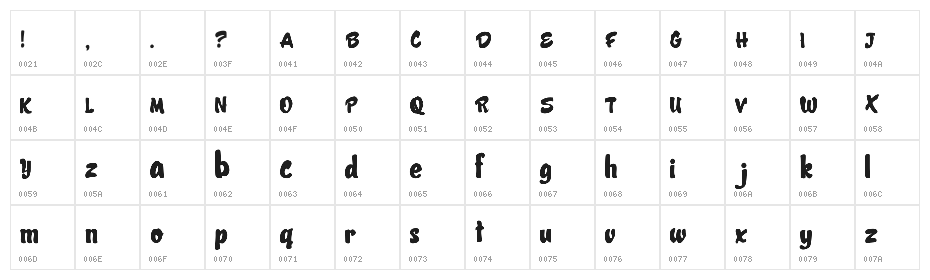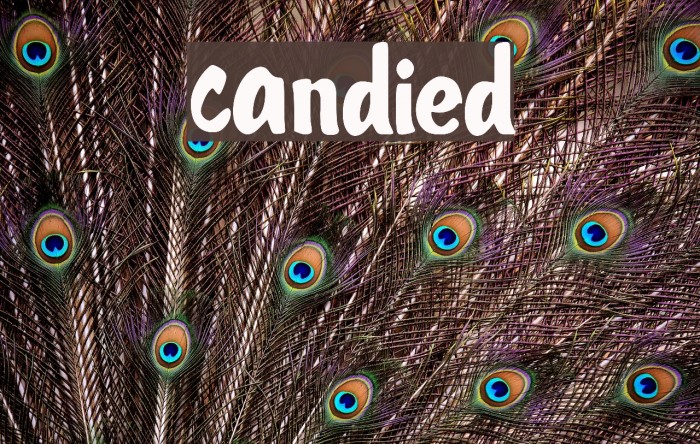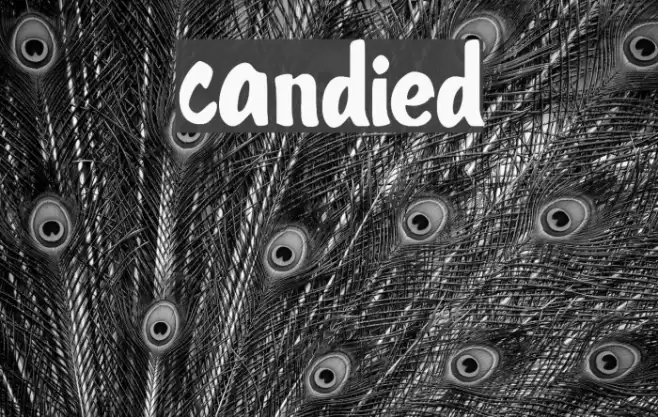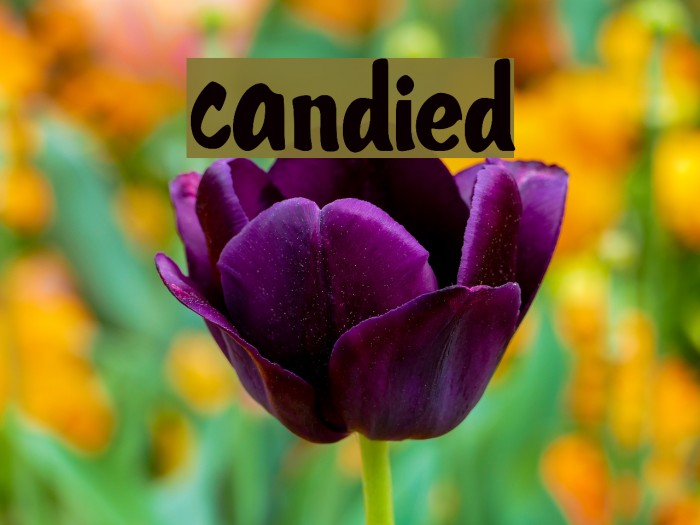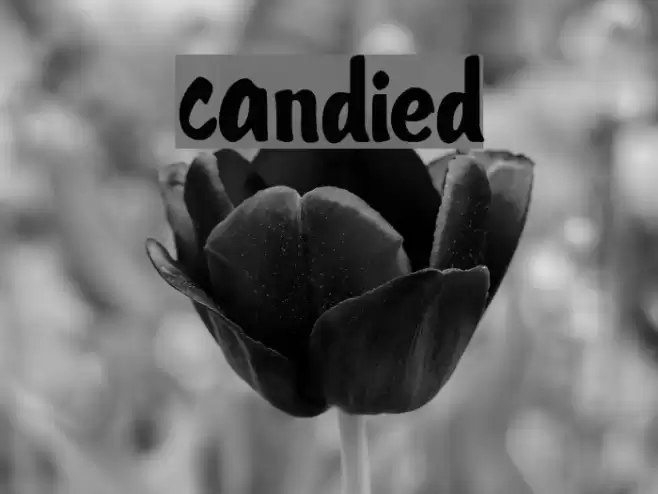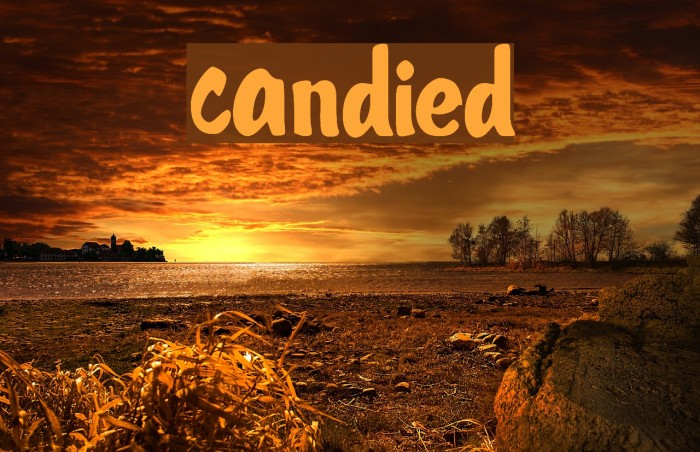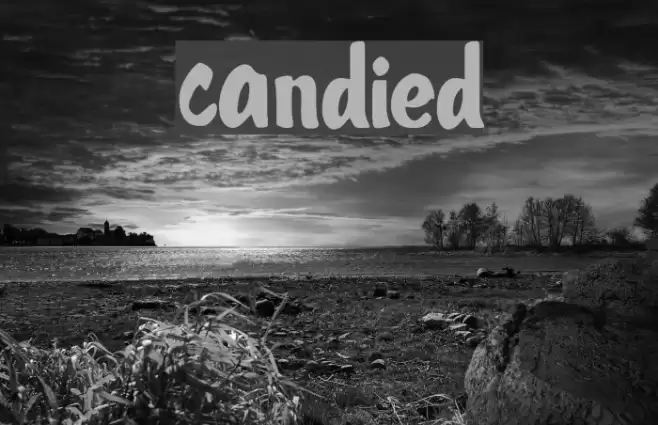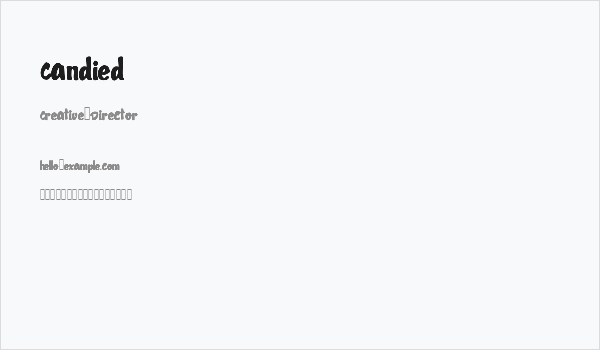
Candied Font
Candied Description
This font features a bold and playful style with a handwritten feel. The letters are thick and rounded, giving them a friendly and approachable appearance. The uppercase and lowercase letters maintain a consistent weight, contributing to a cohesive look. The characters have a slight slant, adding a dynamic and lively touch. This font is well-suited for projects that require a fun and informal tone. The spacing between characters is tight, enhancing the compact and energetic feel of the text.
| Proposed Projects | Ideal for children's books, playful branding, casual invitations, and social media graphics. |